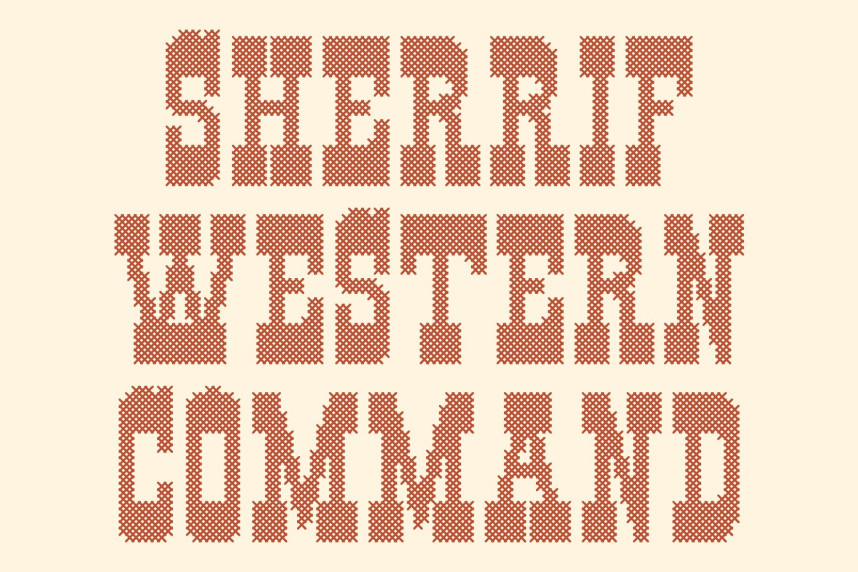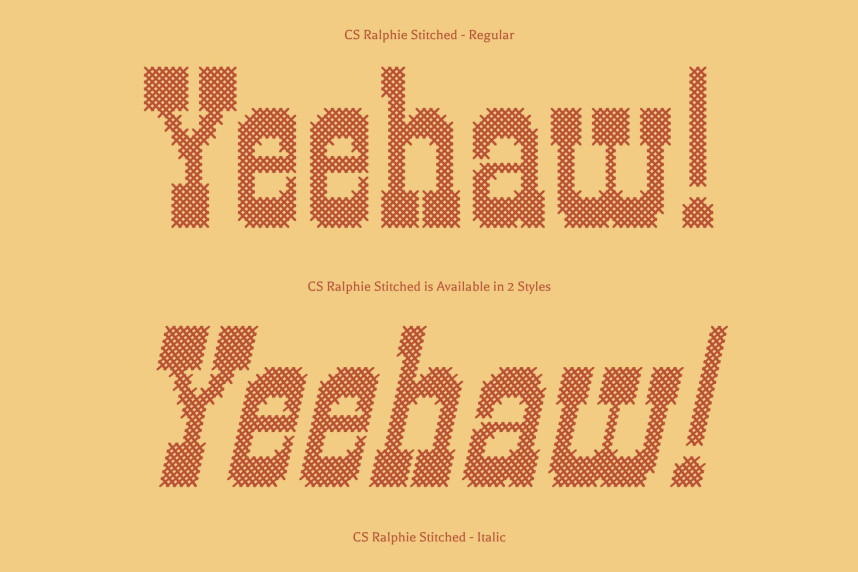
CS Ralphie Stitched Font
CS Ralphie Stitched Font – Western Display Font with Slab Serif and Reverse Contrast
Character Rooted in Old Western Spirit
This is a striking display font inspired by vintage frontier signage, saloon posters, and rugged hand-painted lettering. Its bold slab serif construction creates a strong and grounded presence, while the stitched texture adds handcrafted charm that reinforces its authentic western personality.